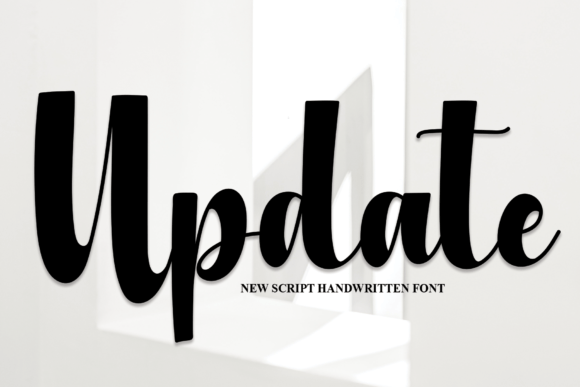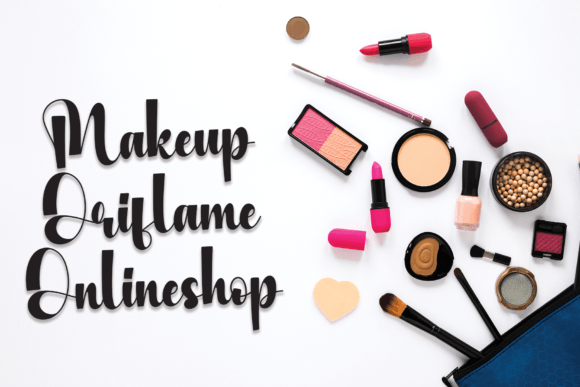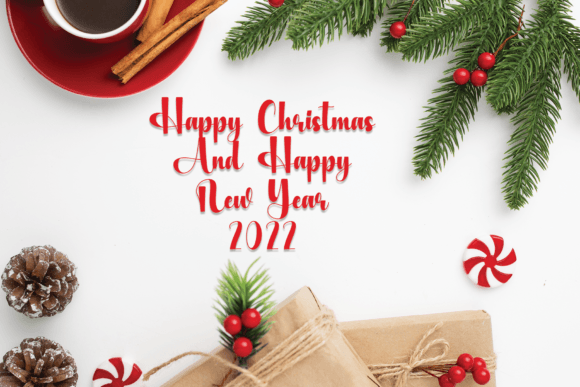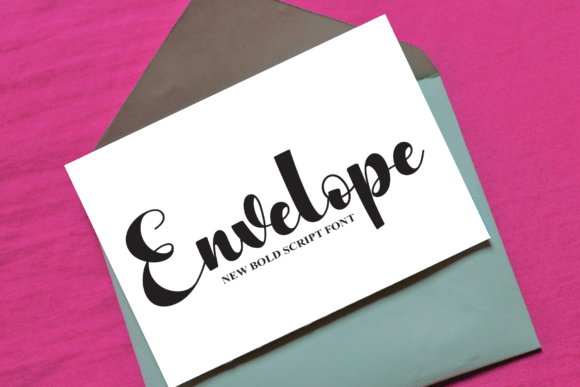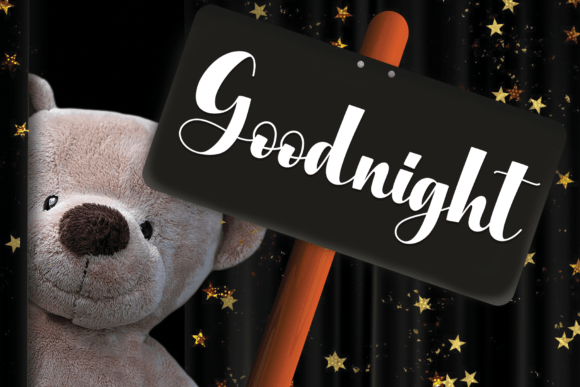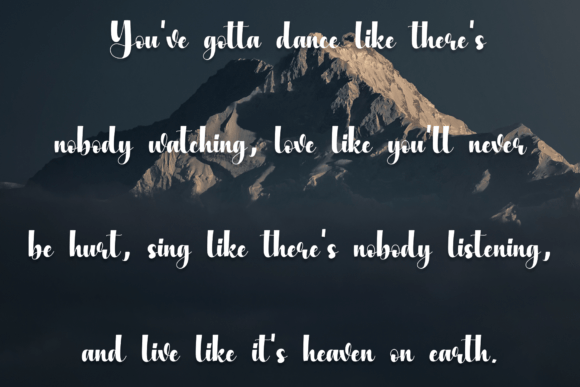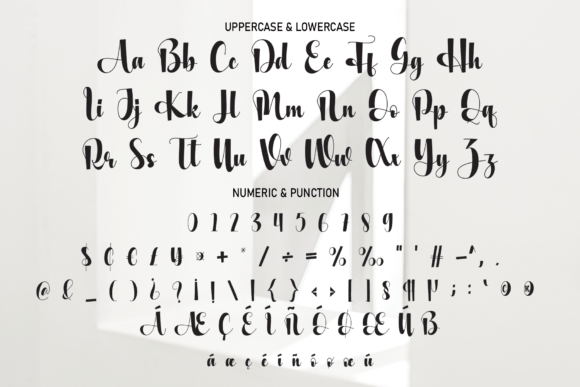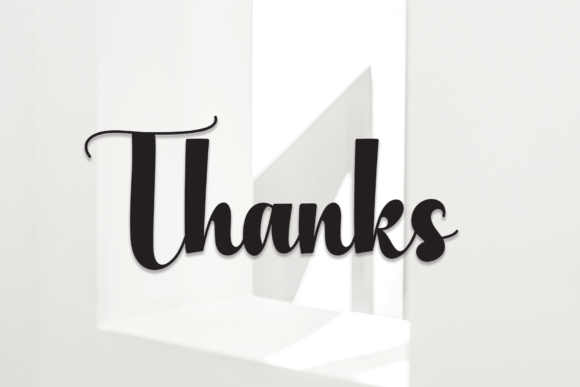
Update Font
About Update Font
Update is an exquisite handwritten font, masterfully designed to become a true favorite. It maintains its classy calligraphic influences while feeling contemporary and fresh. Fall in love with it and bring your projects to the highest levels!